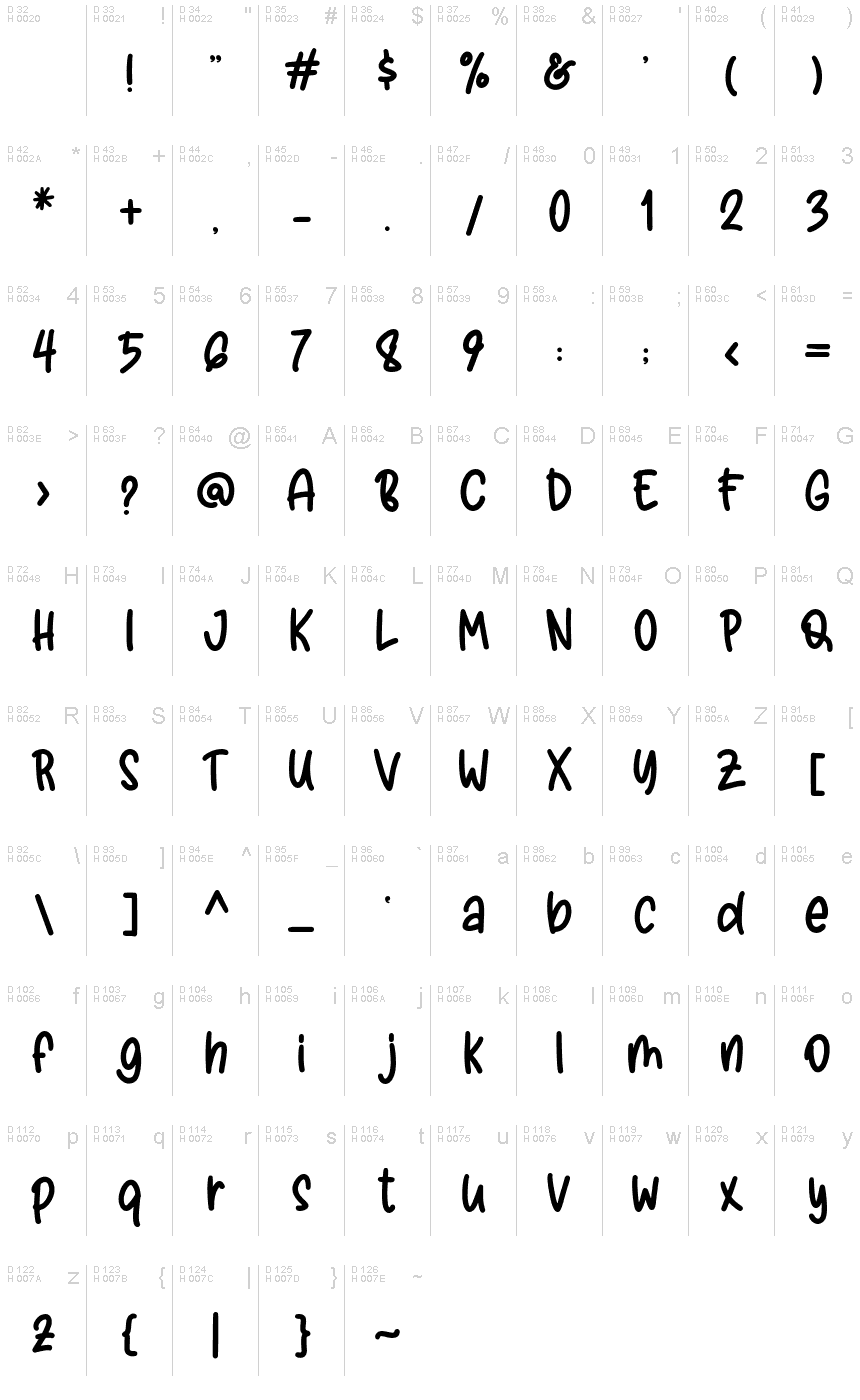
Baby Mermaid
Introducing Baby Mermaid font designed by Alpaprana Studio; a cute handwritten font with light weight. This playful font is perfect for creating eye-catching designs such as quotes, logos, invitations, and scrapbooking. It's also great for adding a touch of personality to social media posts, school projects and more!